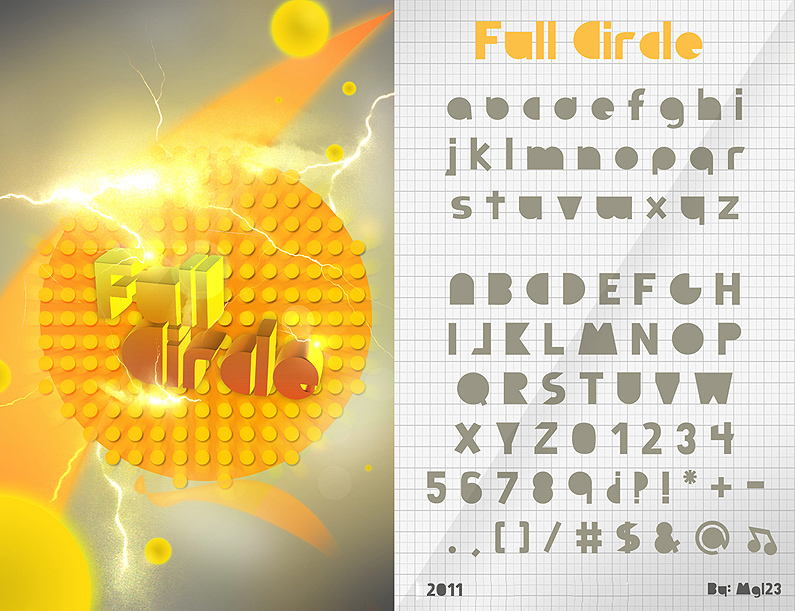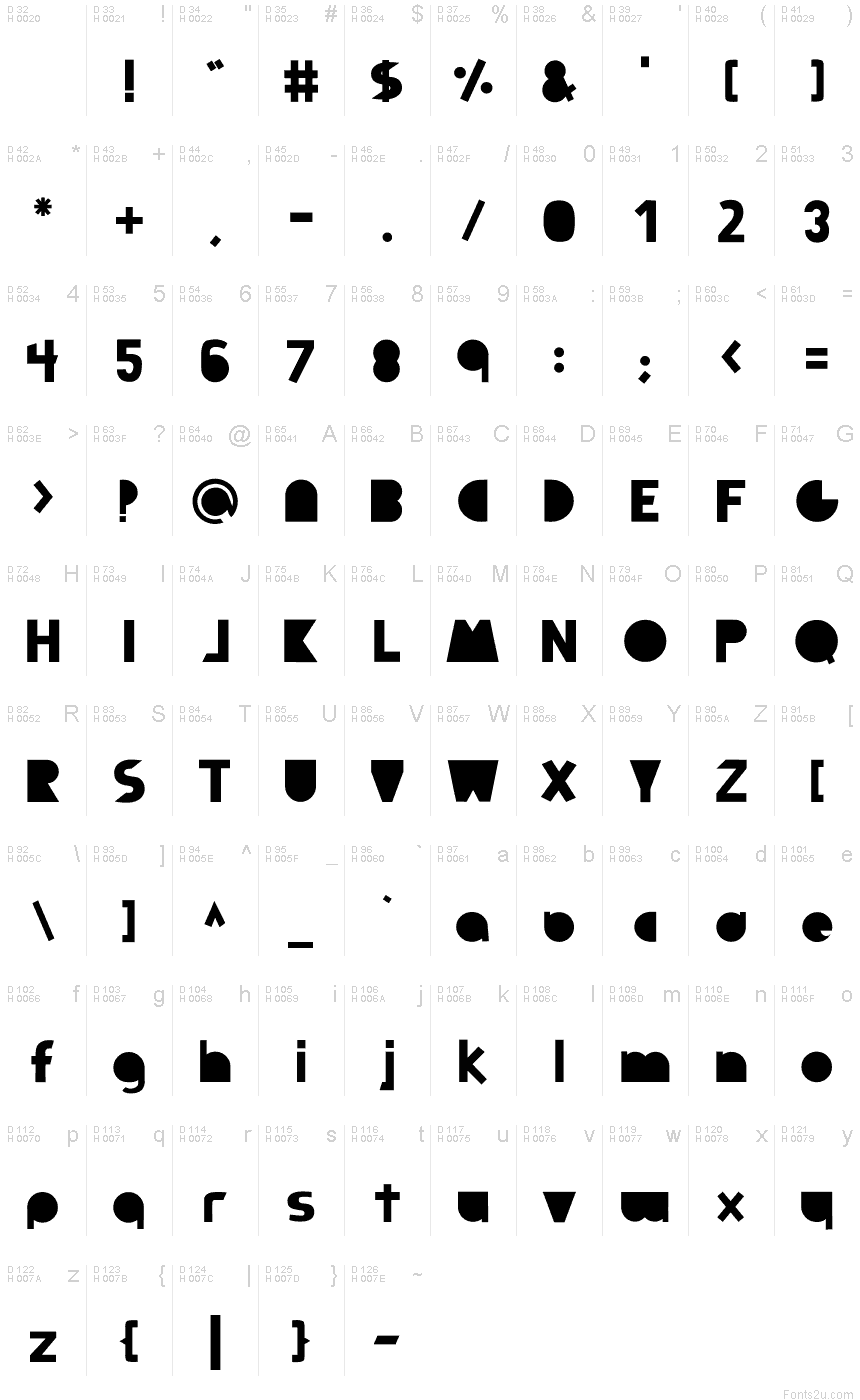
Full Circle by Miguel Rios is a free groovy display font with massive geometric forms and a playful retro-modern silhouette. Broad arches, sharp wedges, and circular bowls make each letter behave differently. Dense weight keeps the varied alphabet visually connected.
Retro-futurist music and geometric imagery suit its style, especially on concert posters and album covers. Its unusual shapes also fit festival graphics and youth packaging with an experimental edge. Circles, triangles, and blocky forms can echo surrounding patterns or illustrations, turning the lettering into part of the artwork.